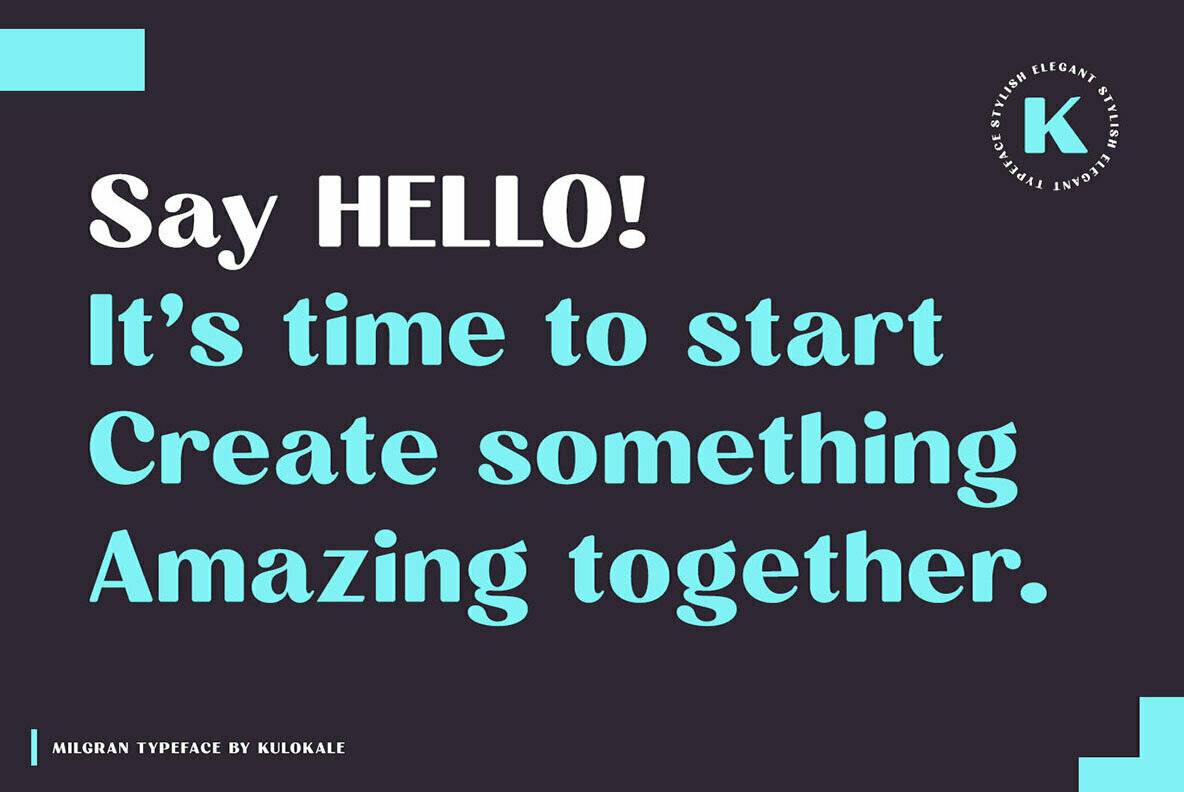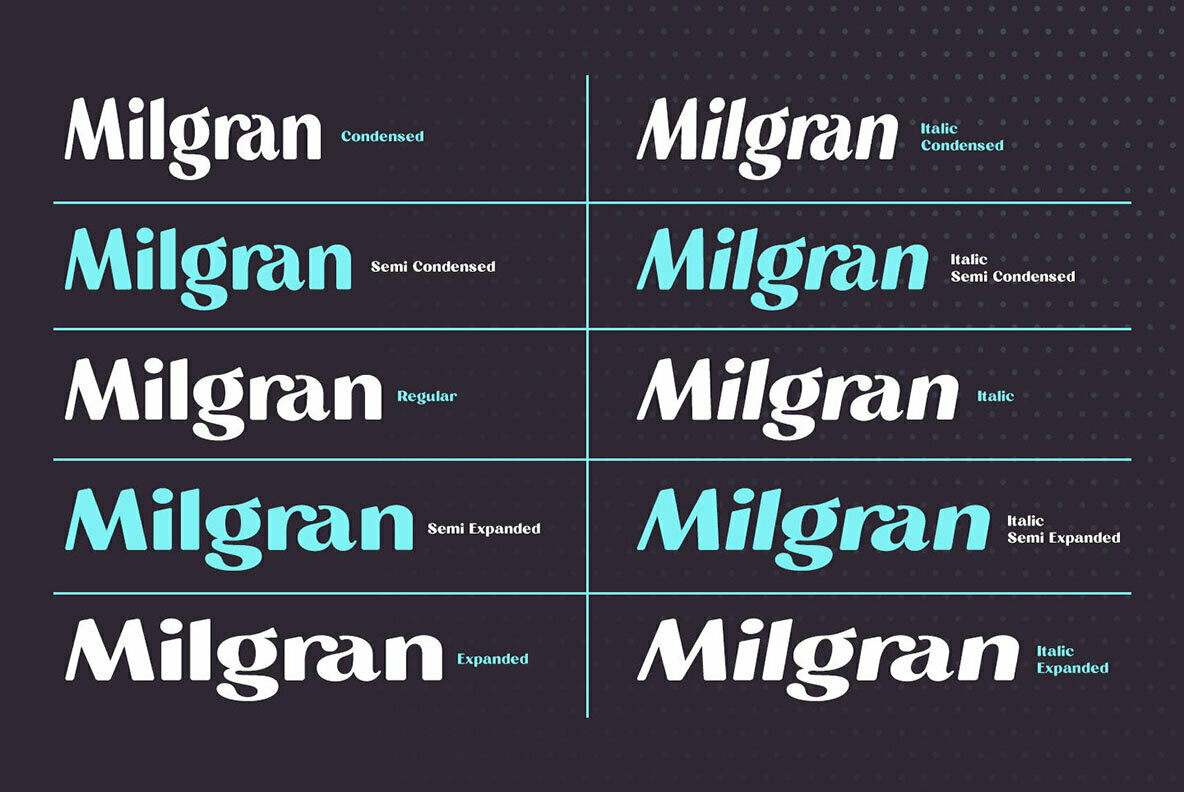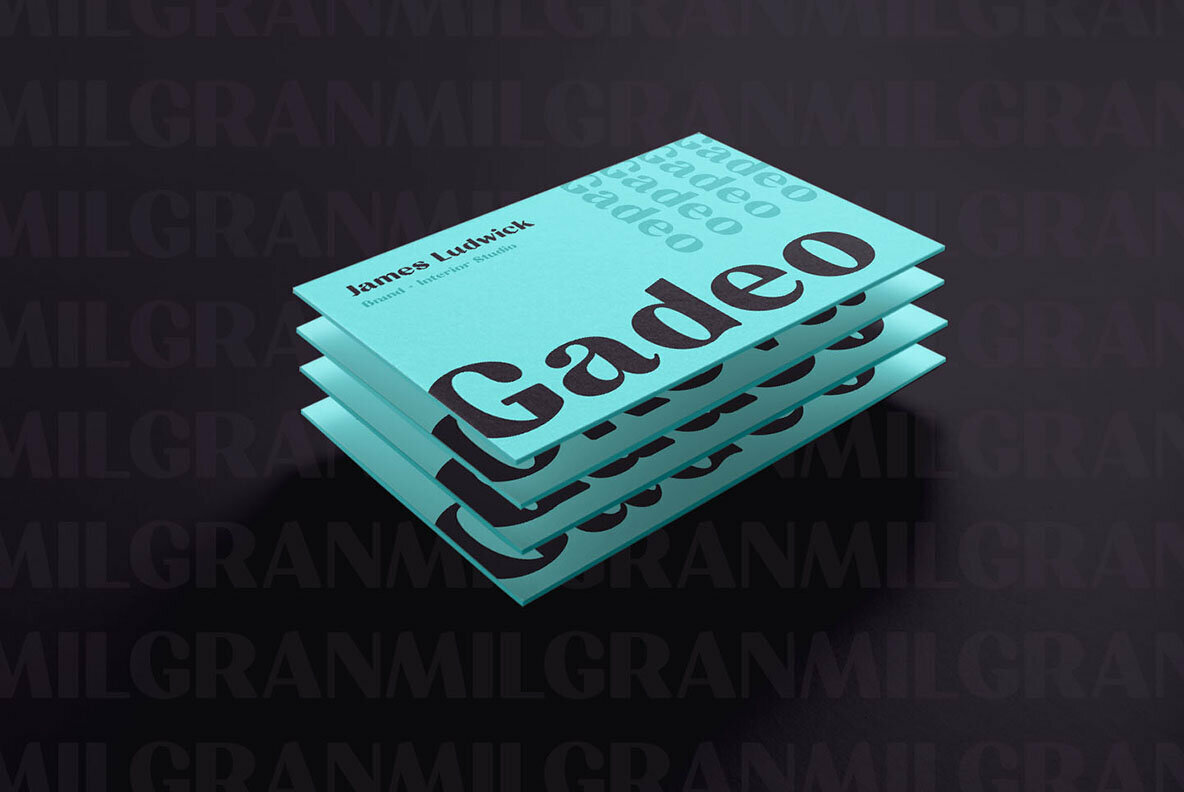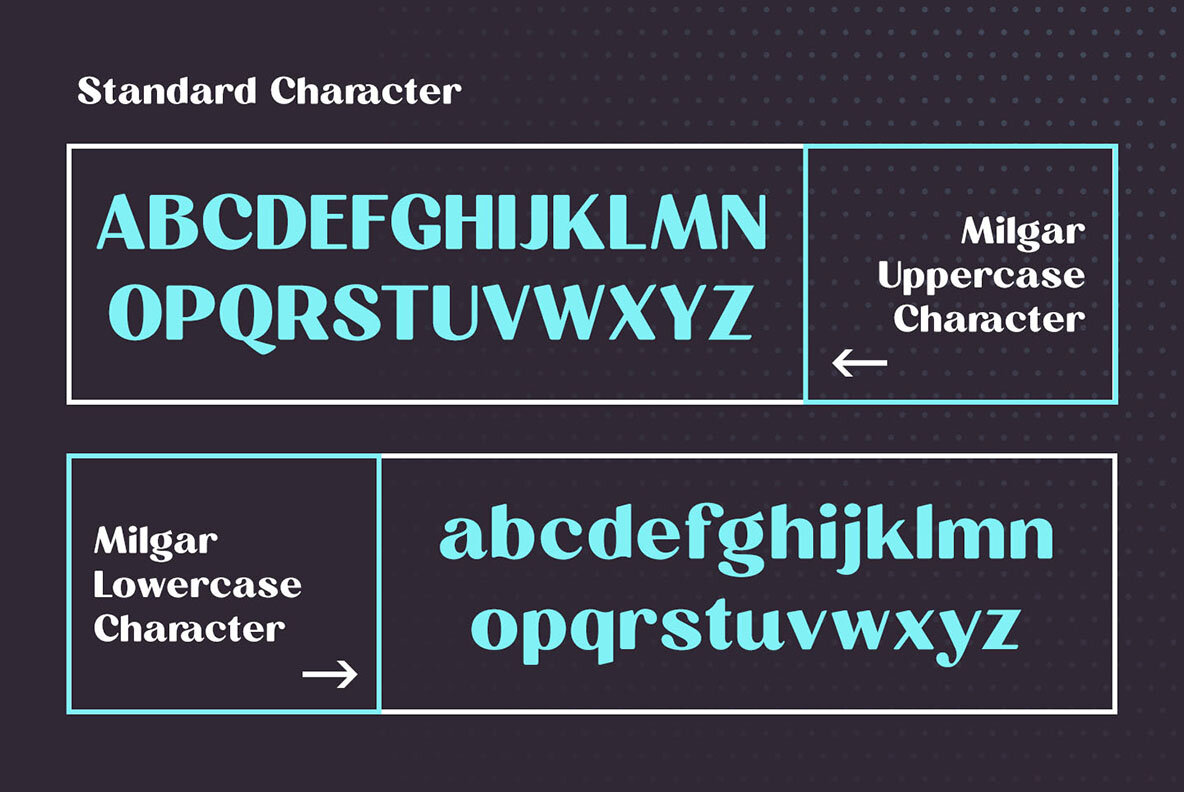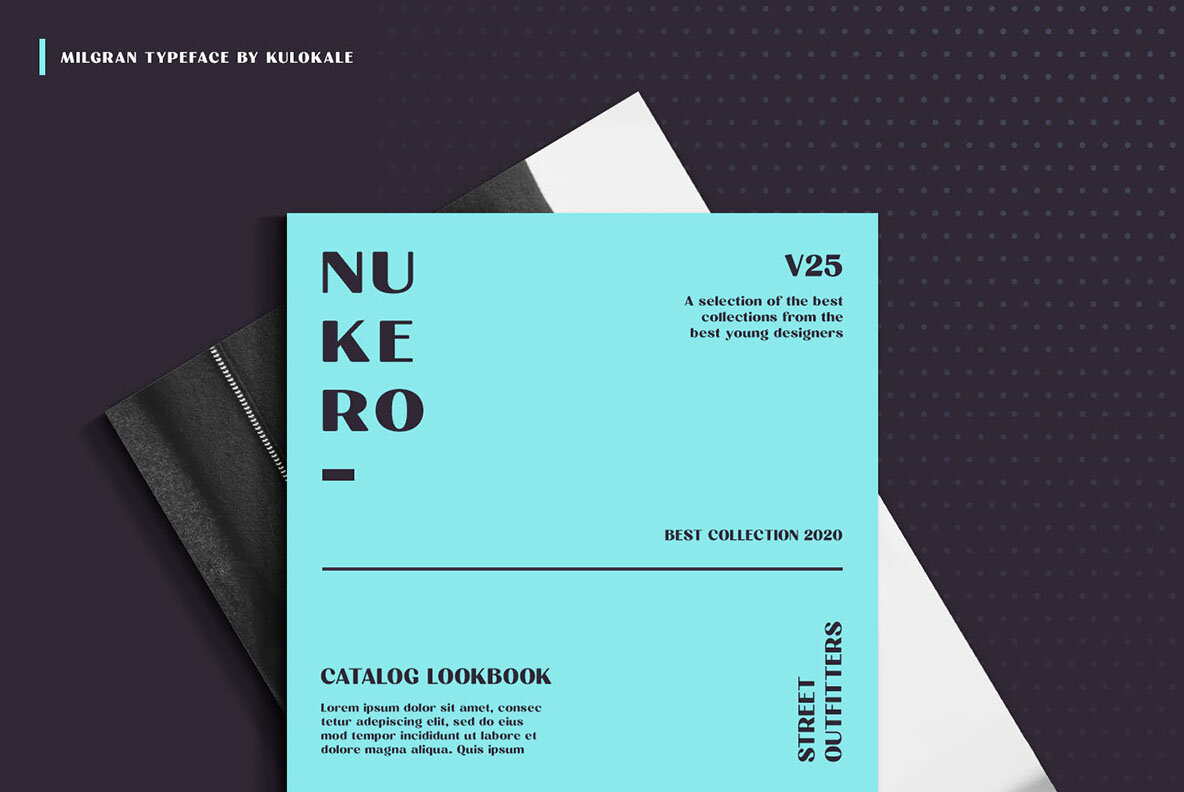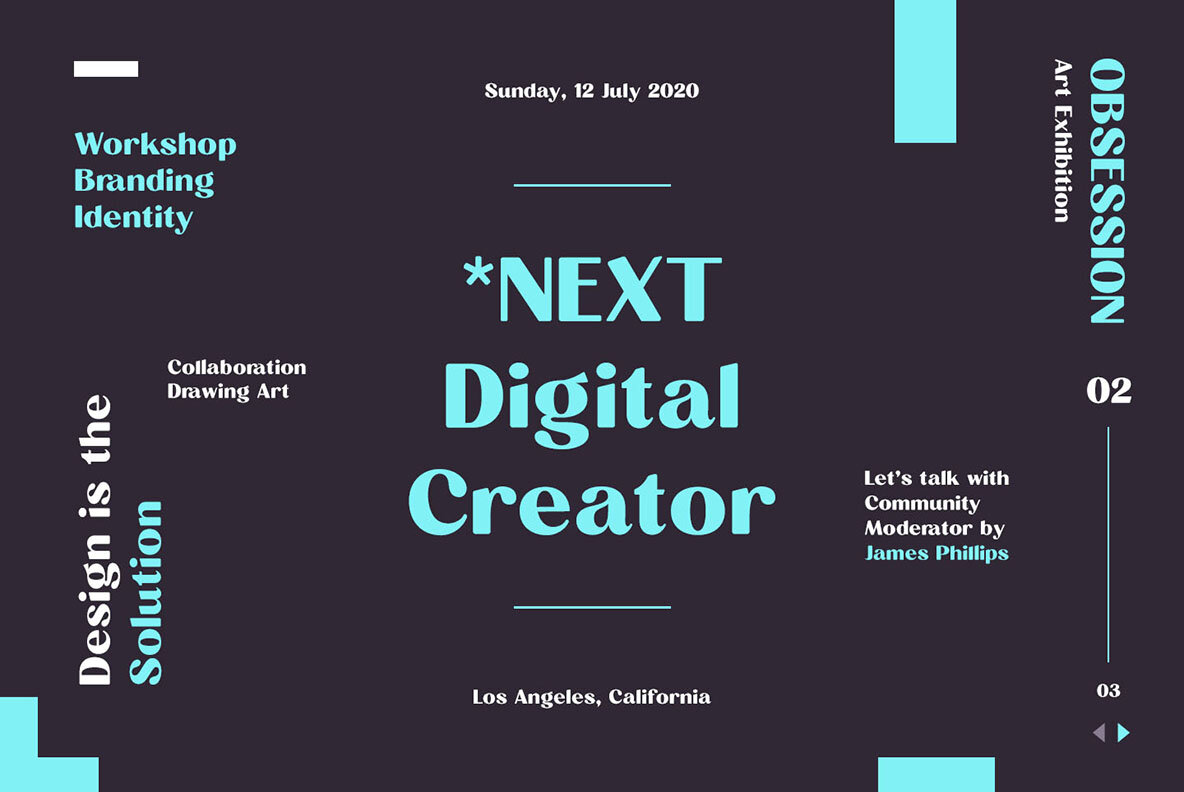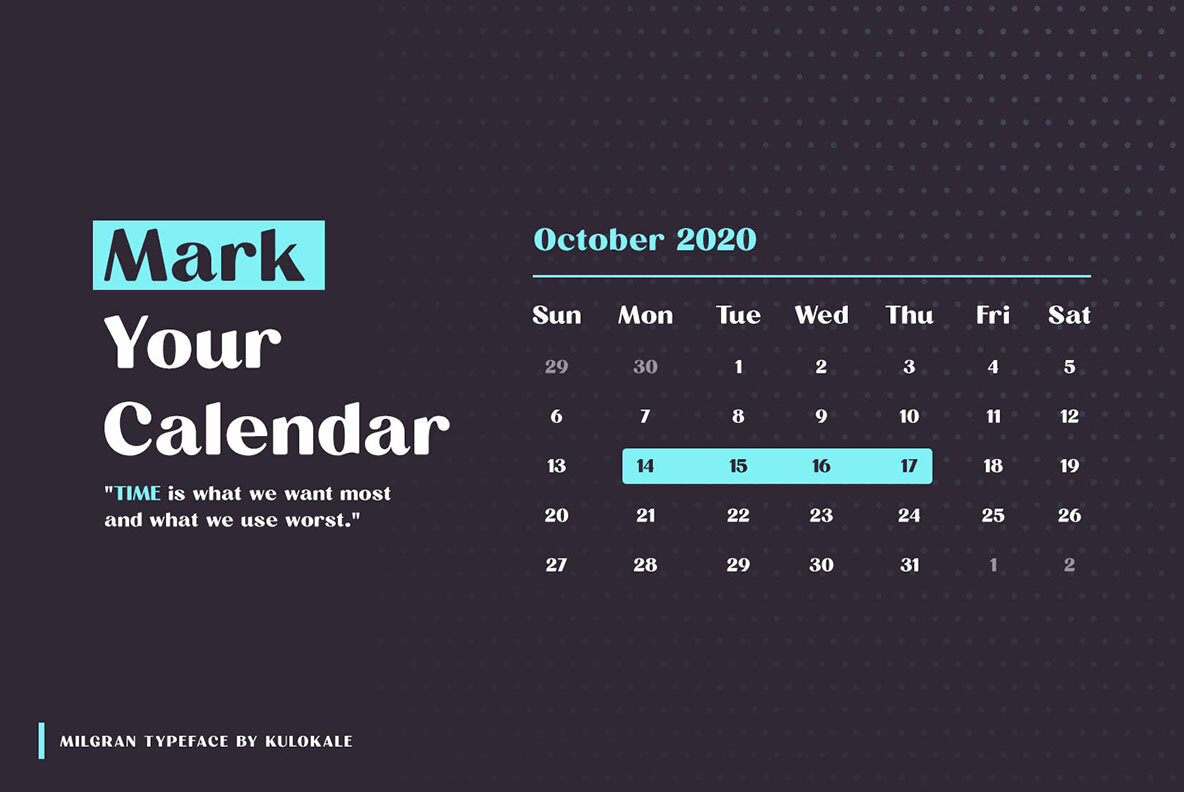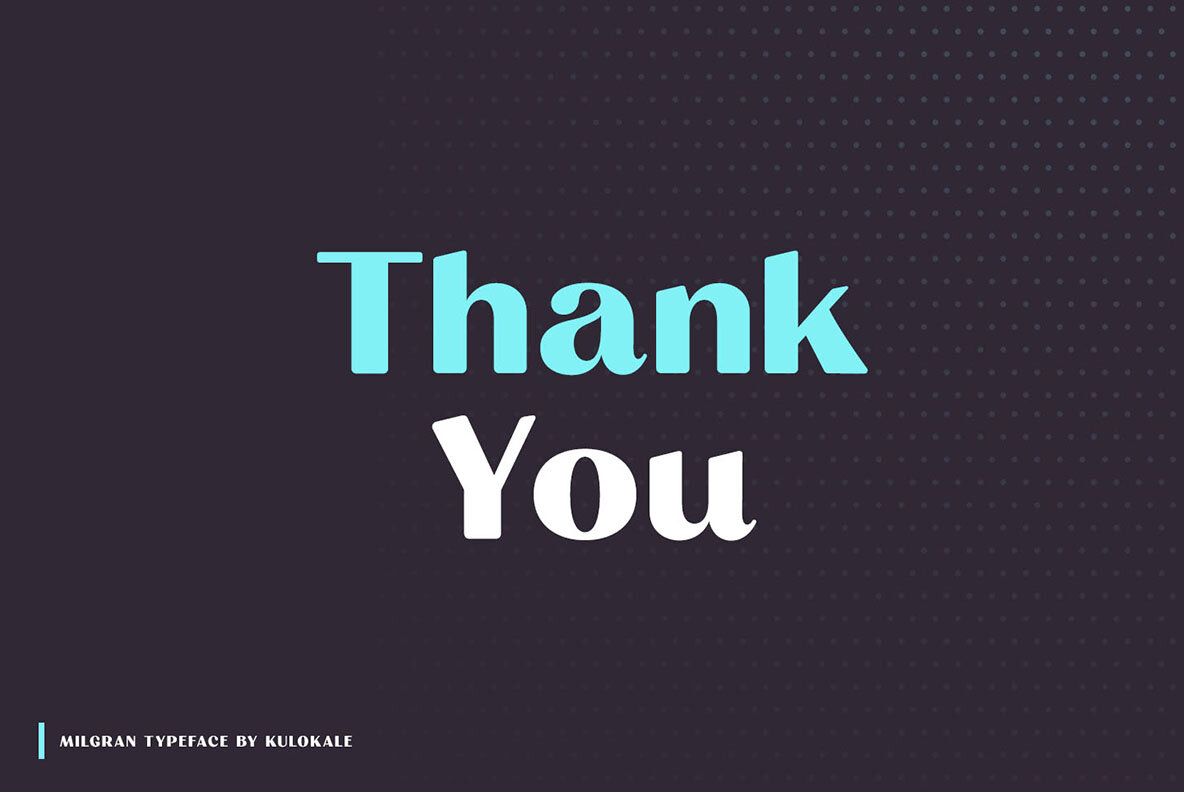
Milgran is a modern and elegant sans-serif font. Milgran is well-suited for advertising, branding, logotypes, packaging, titles, headlines and editorial design.